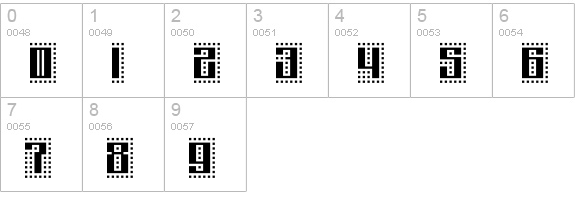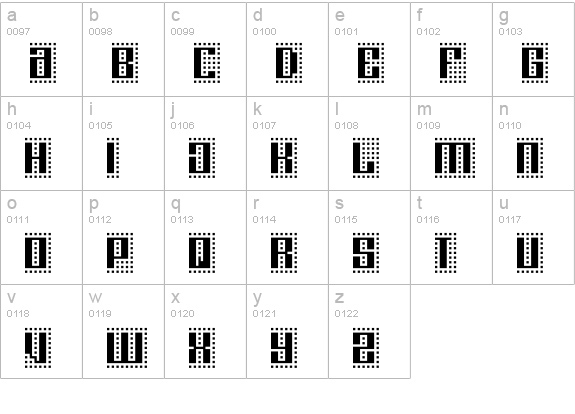
ComputerAmok Font Details
ComputerAmok font is a modern and edgy typeface perfect for adding a touch of personality to your designs. Its sleek lines and bold characters make it stand out on any project, from posters to logos to social media graphics. The font exudes a sense of energy and creativity, making it ideal for conveying a sense of innovation and forward-thinking. What's even better is that ComputerAmok font is completely free to download at FontsMarket.com, giving you unlimited access to this unique and eye-catching typeface. Whether you're a designer looking to spice up your creations or a business owner wanting to make a statement with your branding, ComputerAmok font is the perfect choice. Download it today and let your creativity run wild!